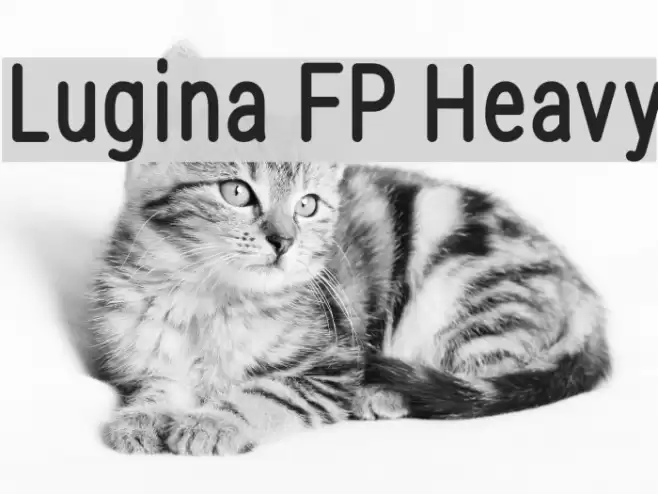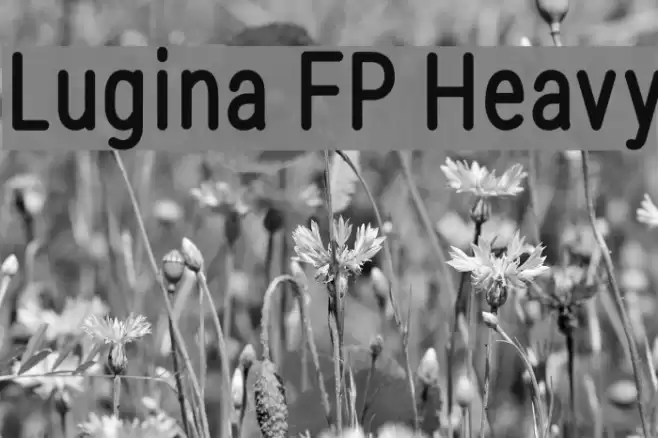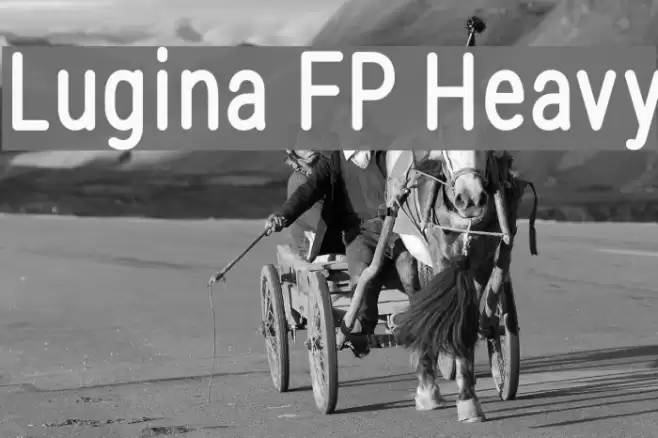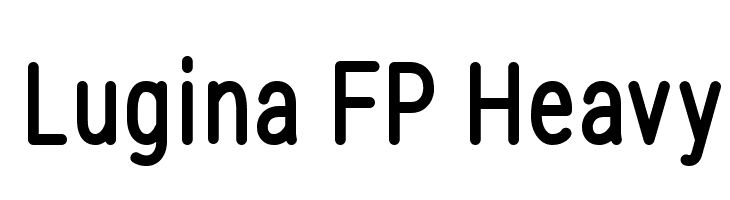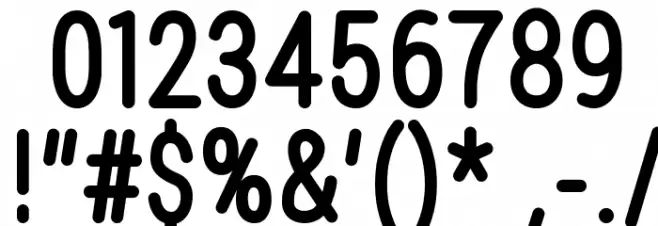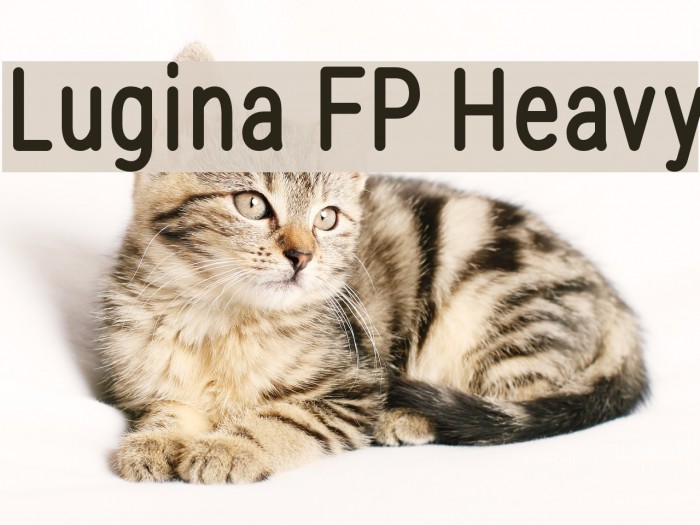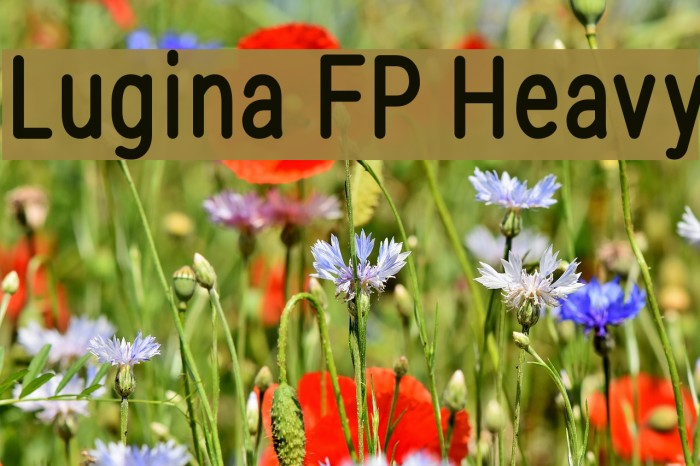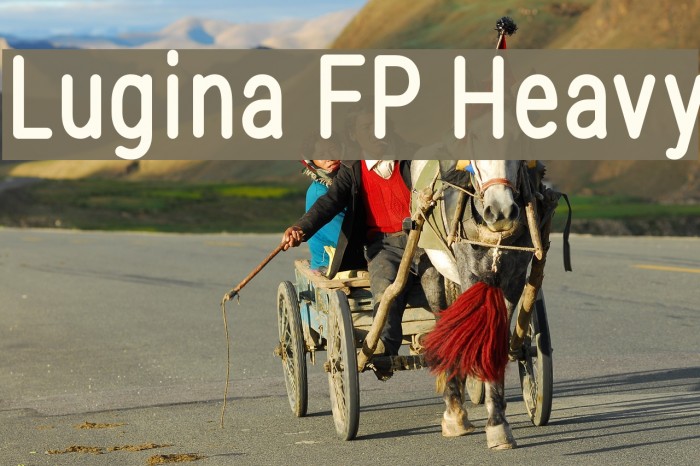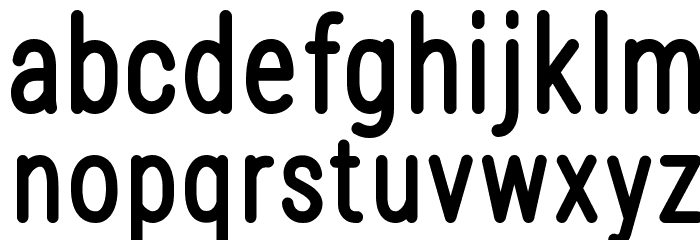
Lugina FP Heavy
This font features a clean and modern sans-serif style with rounded edges that give it a friendly and approachable appearance. The characters are evenly spaced, providing a balanced and harmonious look. The uppercase and lowercase letters maintain a consistent height, contributing to its readability. The numbers are bold and clear, making them suitable for various applications. Special characters are well-defined, enhancing the font's versatility. Overall, this font is ideal for projects that require a contemporary and professional touch.
A modern sans-serif font with rounded edges and balanced spacing.
- Proposed Projects: Ideal for branding, advertising, web design, and editorial projects.
- Use Case: Headlines, Logos, Web design